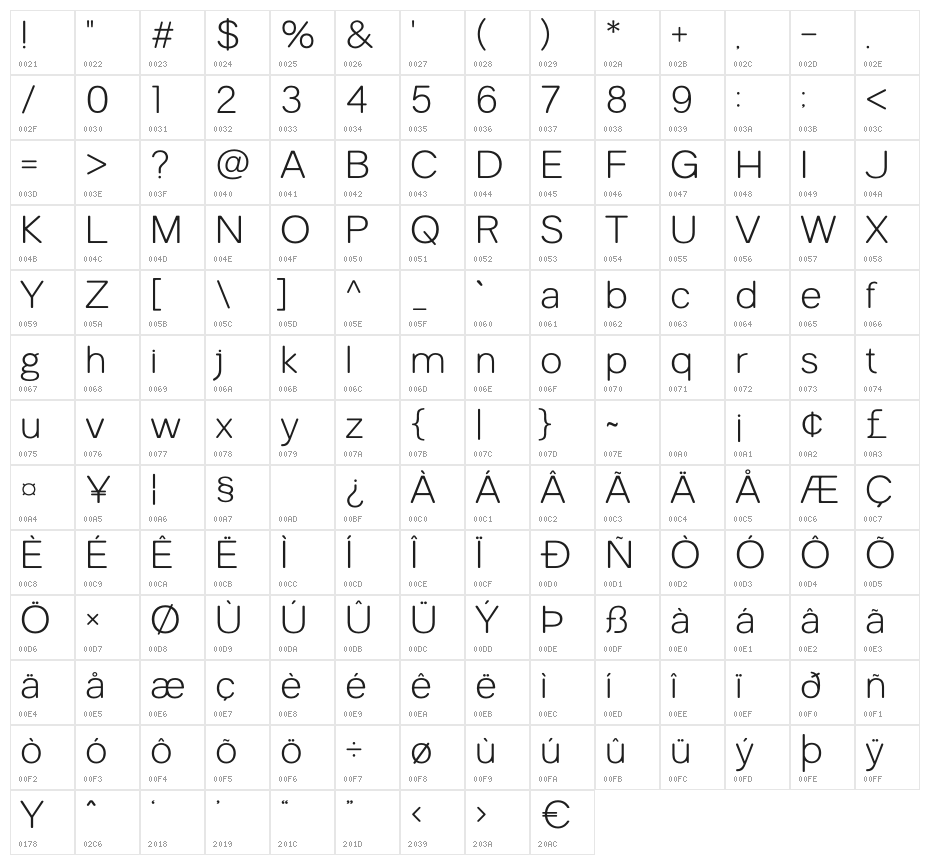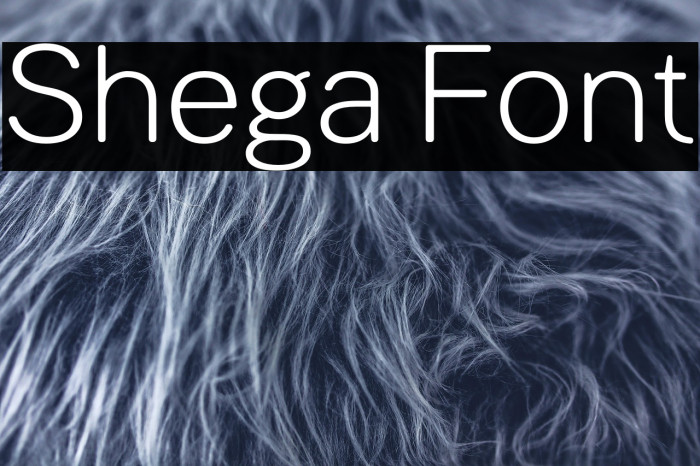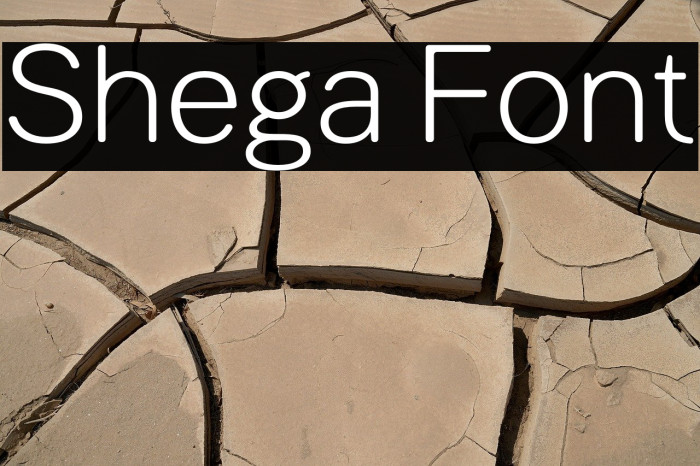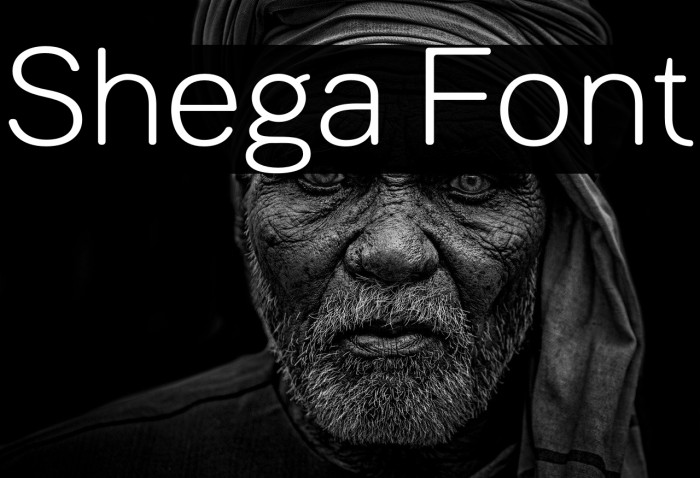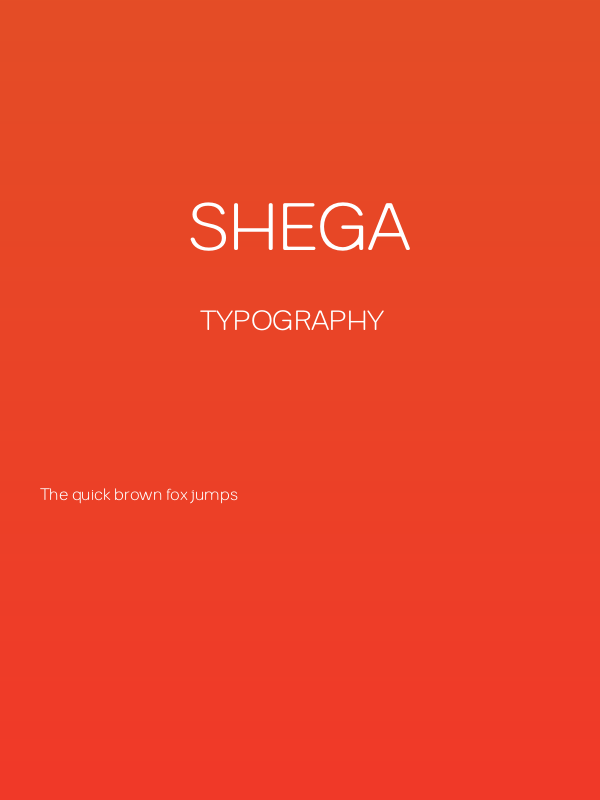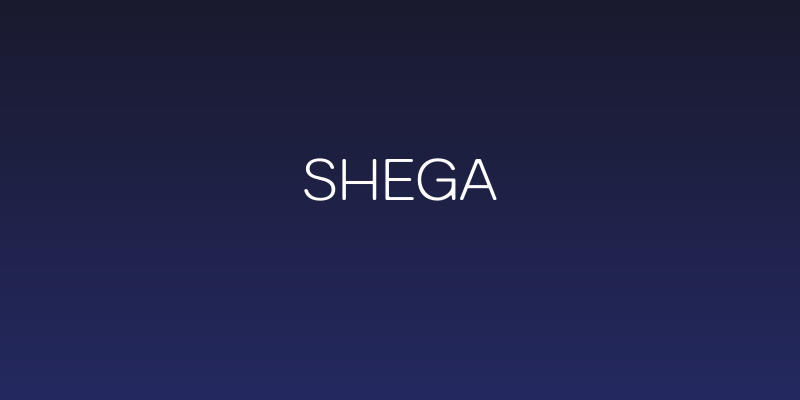
Shega Font
Shega Description
This font features a clean and modern sans-serif style with uniform stroke widths, providing a sleek and minimalist appearance. The characters are well-proportioned with a geometric influence, offering a sense of balance and clarity. The uppercase letters are bold and assertive, while the lowercase letters maintain a friendly and approachable look. The numerals are clear and easy to read, making them suitable for various applications. Special characters are designed with simplicity, ensuring they blend seamlessly with the rest of the typeface. Overall, this font exudes a contemporary and professional vibe, ideal for digital and print media.
| Use Case | Headlines, Body text, Logos |
| Proposed Projects | Ideal for corporate branding, digital interfaces, editorial design, and advertising campaigns. |